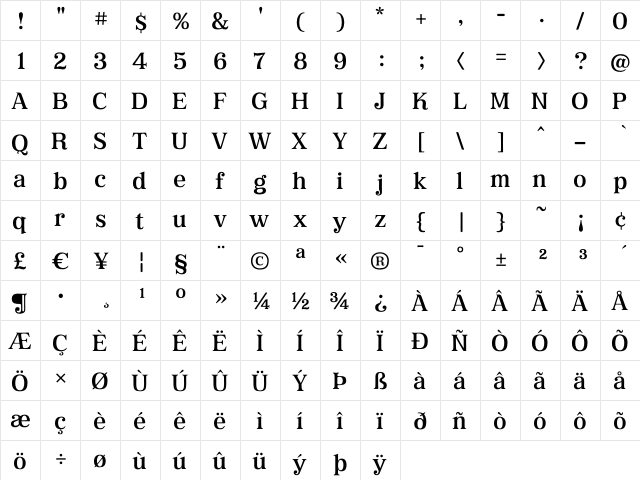
Everafter Regular
| Foundry | Silas Dilworth at Dilworth Typographics Inc. |
| Designer | Silas Dilworth |
Design Context for Everafter Typeface
Everafter takes a measured approach to typography — its balanced proportions and neutral character make it a reliable workhorse for both digital and print work.
Pro Tip: Pair Everafter with a font of contrasting weight or personality to build a more expressive typographic hierarchy.